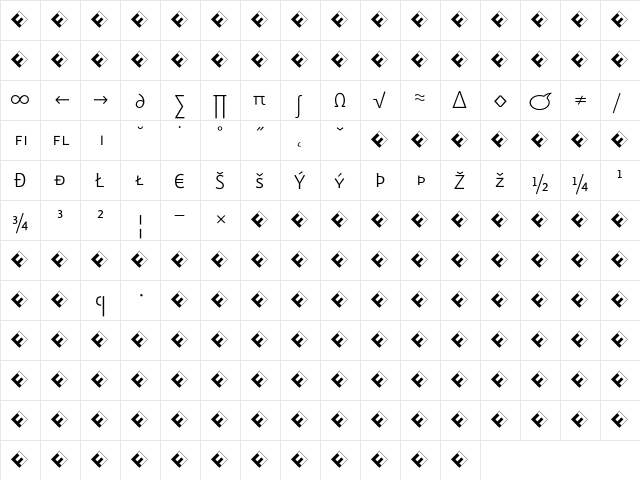
Eureka Sans Light Caps Exp
Design Context for Eureka Sans Typeface
Eureka Sans takes a measured approach to typography — its balanced proportions and neutral character make it a reliable workhorse for both digital and print work. Its slender proportions lend an understated elegance to any composition.